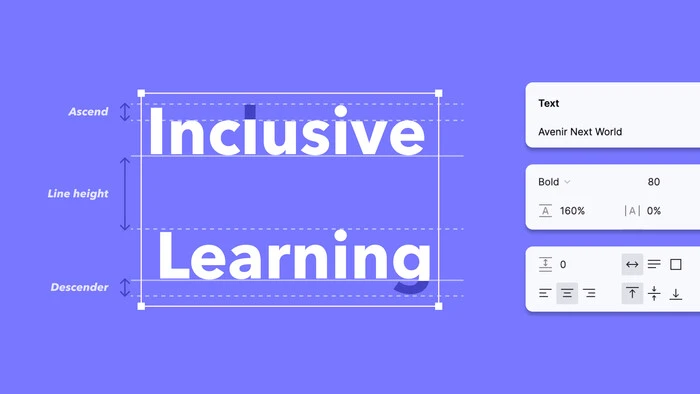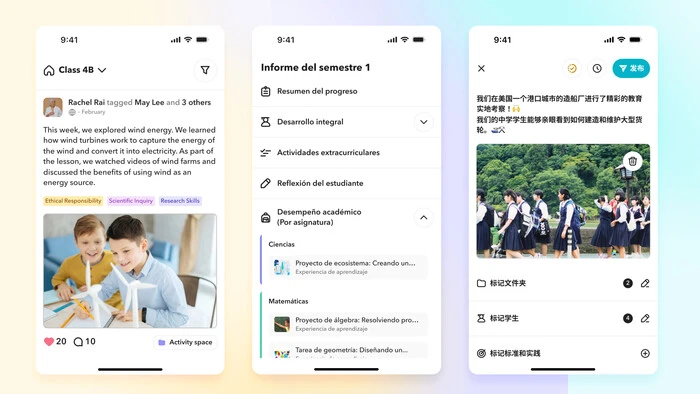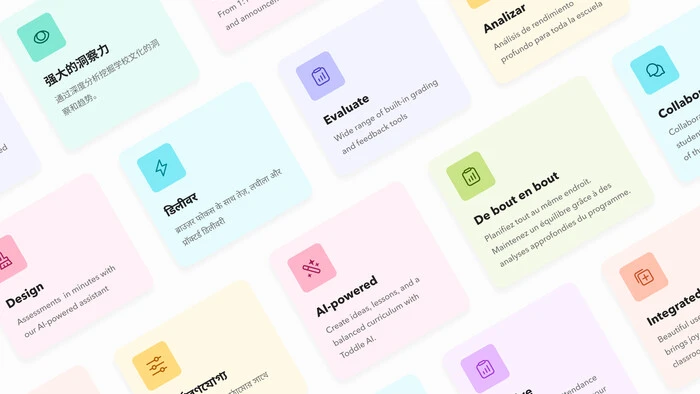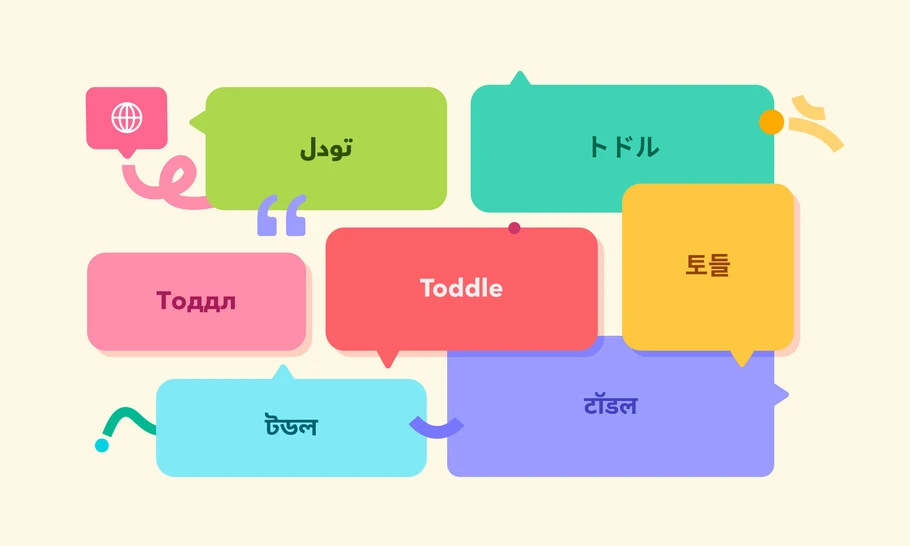
Toddle x Monotype Fonts: Multilingual support and enhanced creativity.
Creative collaboration meets playful typography in Toddle’s branding, powered by Monotype.
Toddle, a pioneering ed-tech platform, is dedicated to empowering educators with tools to create and deliver world-class learning experiences. With a mission to simplify teaching and learning for schools and teachers worldwide, Toddle places design and user experience at the core of its product strategy.
Creative classroom collaboration powered by playful typography in Toddle's Monotype partnership.
Global language capabilities.
With clients spread across the globe, Toddle needs extensive multilingual support to cater to diverse audiences. From English to Arabic, Hebrew, Cyrillic, and beyond, ensuring consistent typography across languages and alphabets is a significant challenge. The challenge for Toddle was to find a brand font with a fully rounded global character set, allowing for design cohesion and consistent brand identity no matter the region.
Through Monotype Fonts, Toddle have access to Avenir Next World, a strategic brand font choice boasting a robust language coverage, capable of providing support in all regions of interest. This allows the company to maintain a cohesive visual identity while effectively communicating with audiences worldwide. Since switching to Monotype Fonts, Toddle has successfully launched its platform in multiple regions across the world, with a view to many more soon. Monotype Fonts has been essential to Toddle’s expansion into new markets.
The introduction of font classes has streamlined our team’s workflow, enabling faster development and achieving the desired product design more efficiently. ”
Advanced tools for experimentation.
Toddle’s mission to deliver best-in-class educational tools relies heavily on a standout design that resonates with educators and students alike. To achieve this, the ability to experiment with typography and design is crucial. Monotype Fonts provides Toddle’s creative teams with advanced search and discovery tools, enabling seamless experimentation directly within the platform. These tools allow the team to save valuable time and resources, while empowering them to explore and experiment with varied design options. Some options in particular really stood out:
Modern classroom management made creative with Toddle’s intuitive design
Out of all tools that are available, the visual representation of the font properties such as line-height, ascent and descent values helped us the most in understanding the font better and choosing the right font for our product. ”
Modern classroom management made easy with Toddle.
Streamlined workflows.
Consistency and efficiency across teams are critical for Toddle’s design and development processes. The integration of Monotype Fonts’ desktop app with tools like Figma transformed Toddle’s workflows. Direct font syncing and activation eliminated inconsistencies and simplified collaboration between designers and developers. By unifying access to fonts across all teams, Toddle significantly improved its ability to translate design concepts into functional, cohesive products:
The introduction of font classes has streamlined our team’s workflow, enabling faster development and achieving the desired product design more efficiently. ”
Monotype Fonts has been a game-changer for Toddle, addressing challenges in multilingual support, design experimentation, and workflow efficiency.